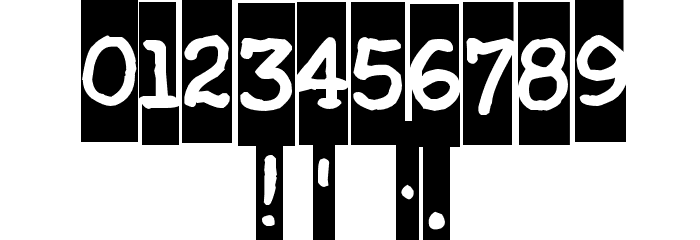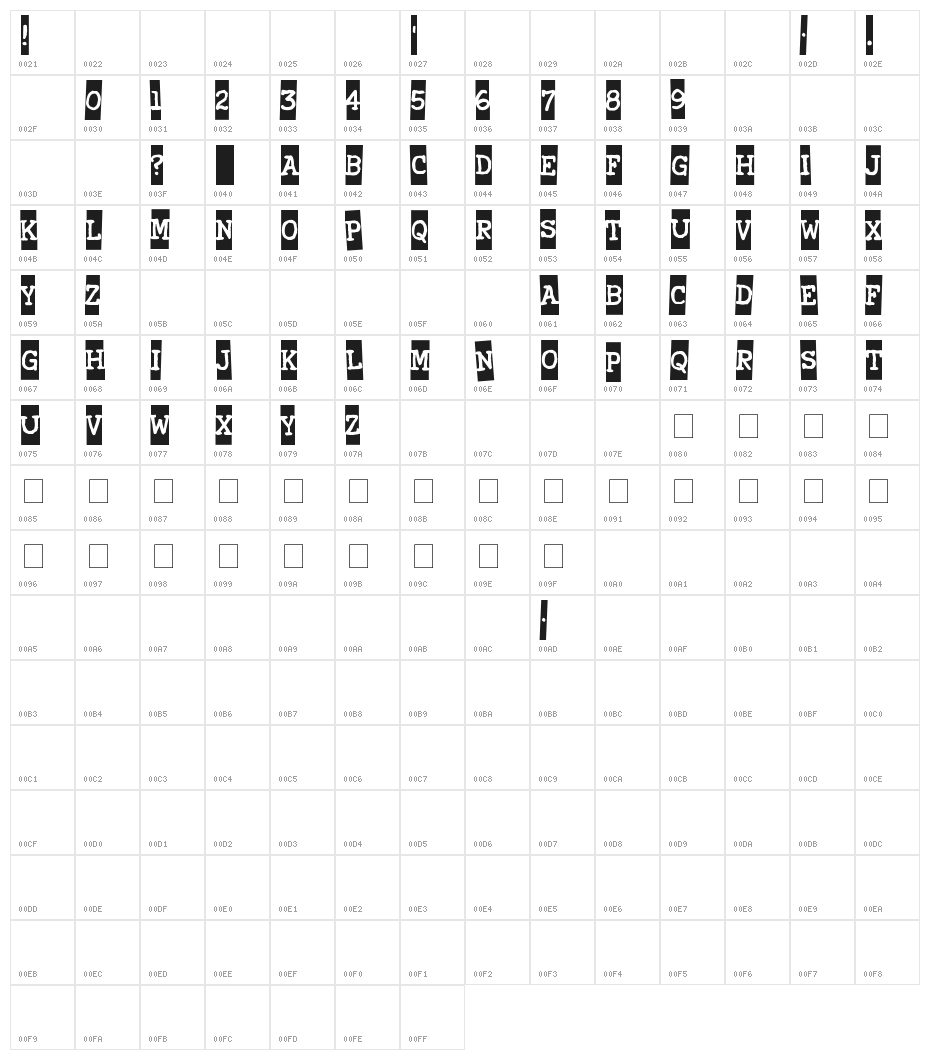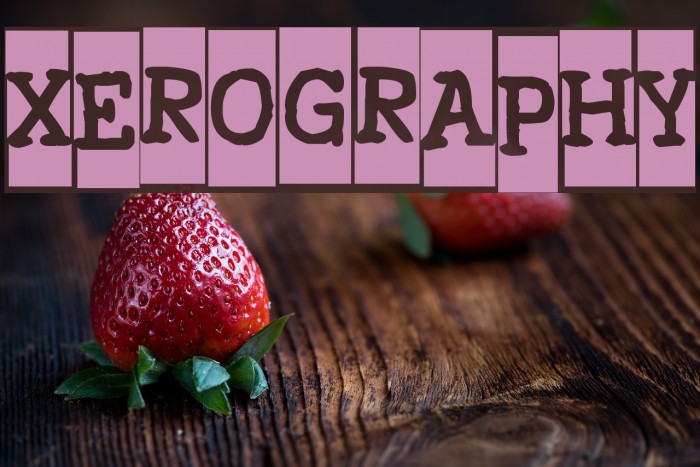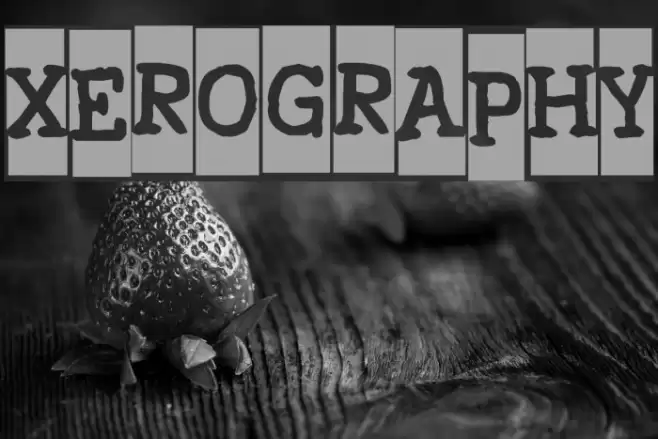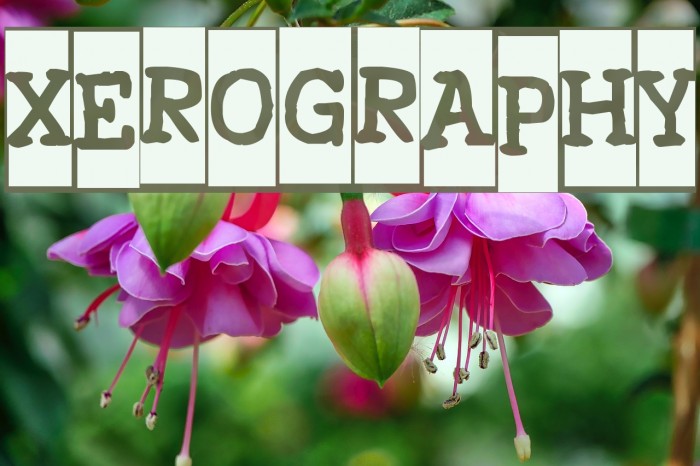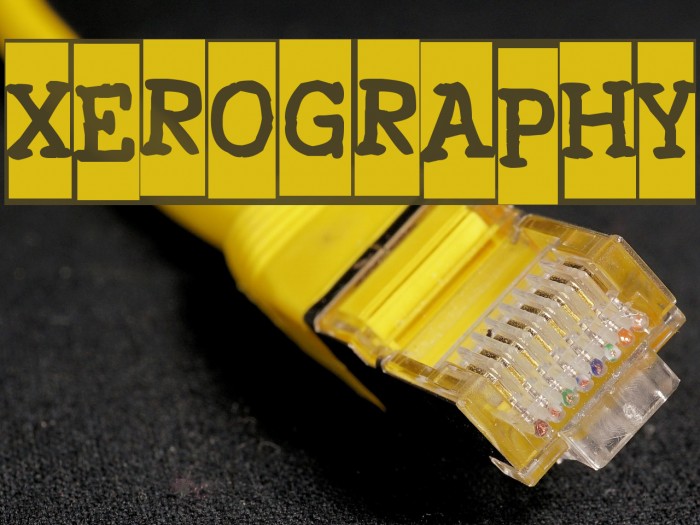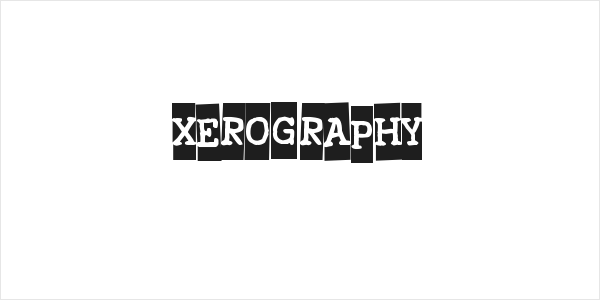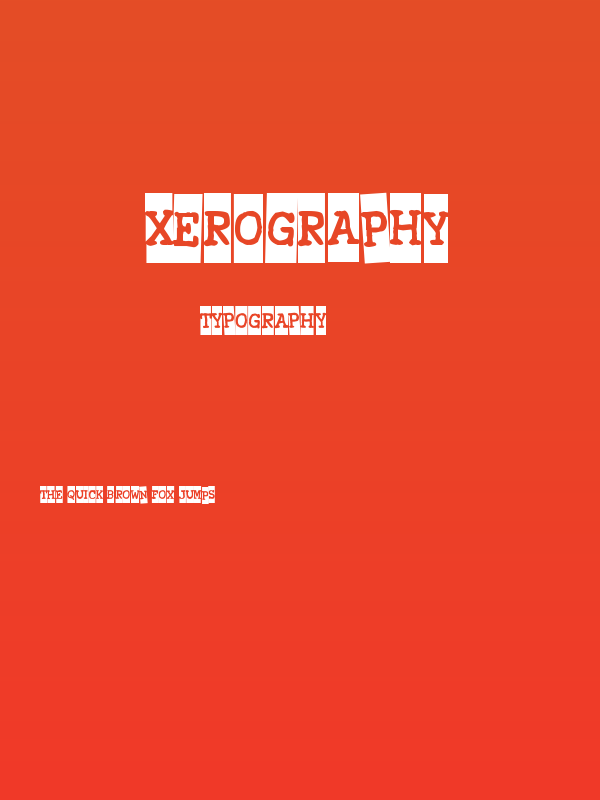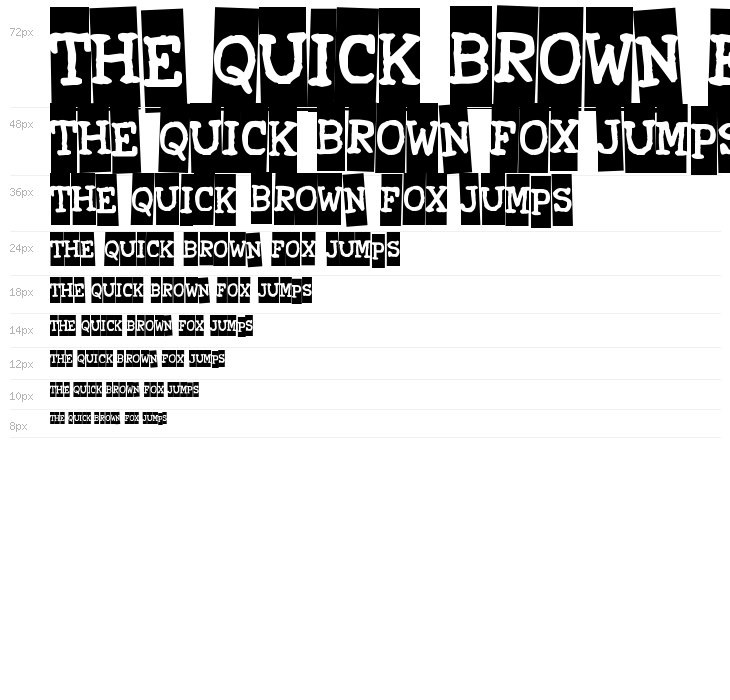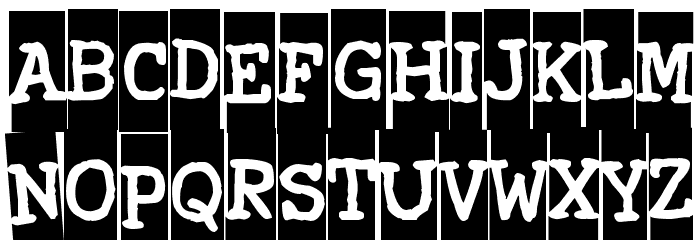
Xerography Font
Xerography Description
This font features a playful and bold design with a hand-drawn aesthetic. The characters are slightly irregular, giving them a whimsical and informal appearance. The strokes are thick and uneven, adding to the casual and artistic feel. The uppercase and lowercase letters maintain a consistent style, with rounded edges and a slightly distressed look. The numbers and special characters follow the same design principles, ensuring a cohesive appearance across all glyphs. This font is ideal for projects that require a fun and creative touch, such as children's books, posters, or greeting cards.
| Proposed Projects | Ideal for children's books, playful posters, greeting cards, and creative branding. |